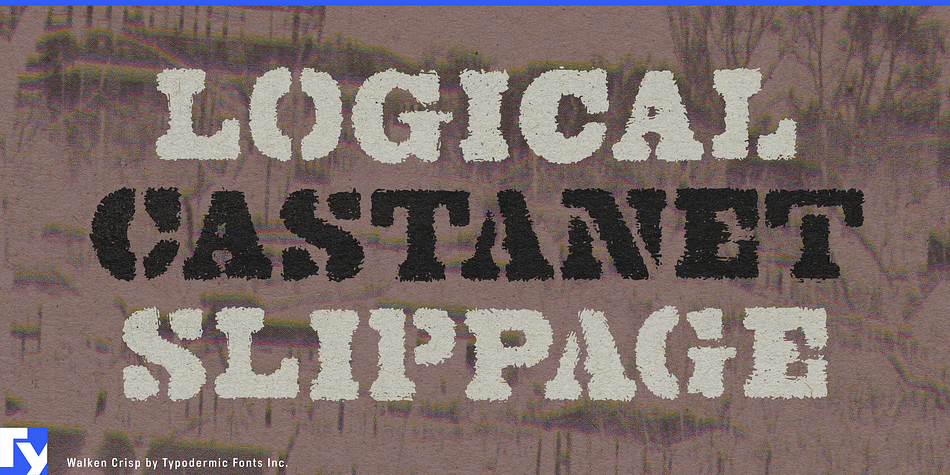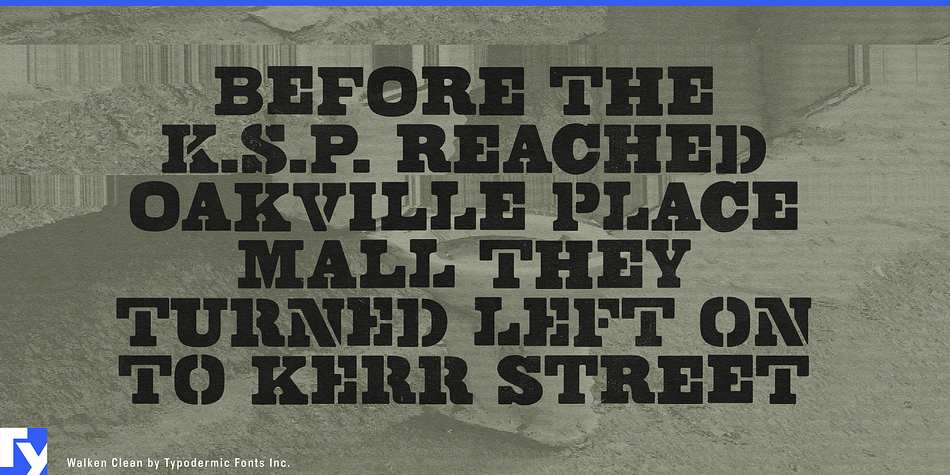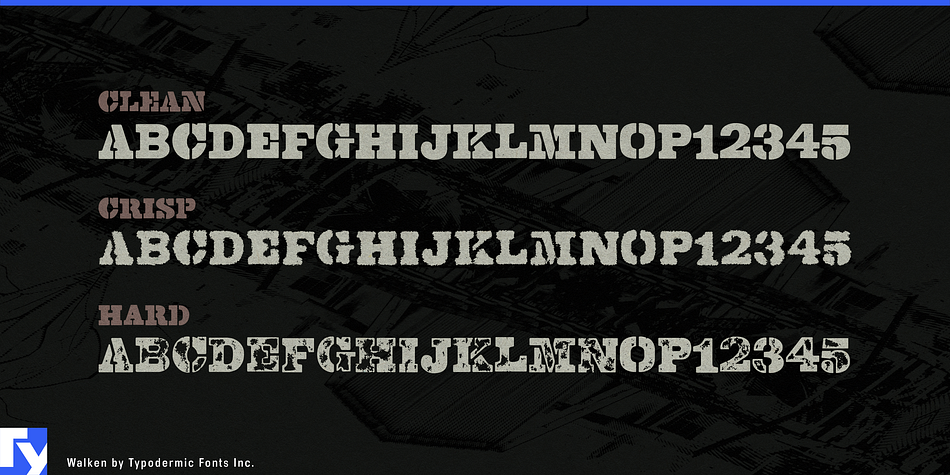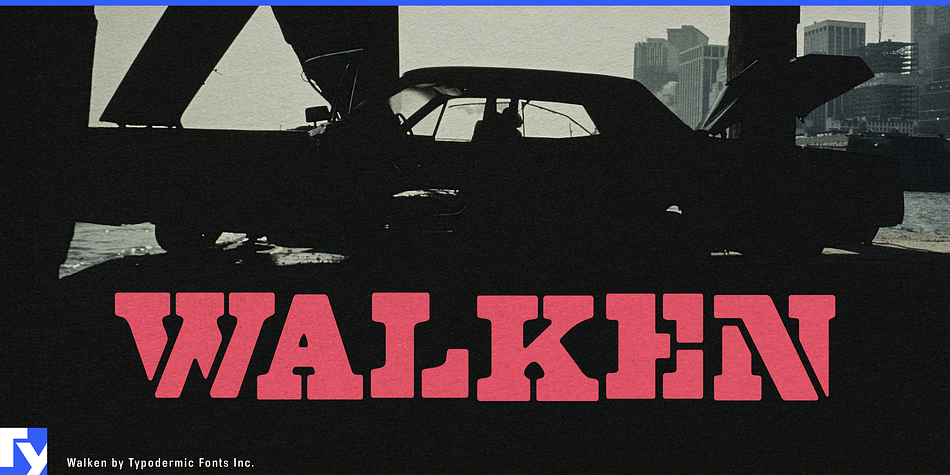
Walken is a grunge and stencil font family. This typeface has three styles and was published by Typodermic Fonts Inc.
Walken is a sure-footed slab serif font family. A stencil font, you ask? Sometimes . . . maybe . . . maybe you should stop asking so many questions.